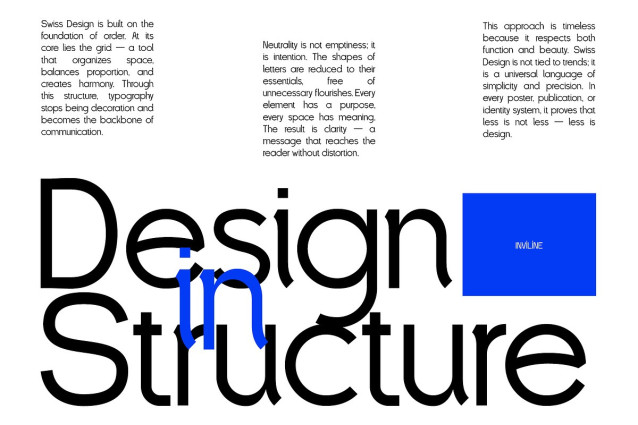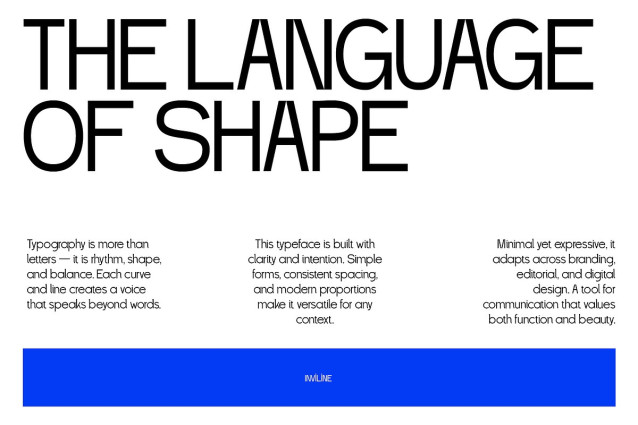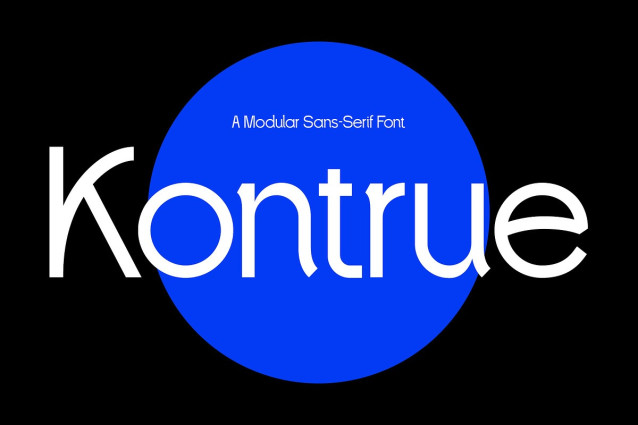
Kontrue Font
Kontrue Font is a modular sans-serif font with a futuristic twist and minimalist elegance. Designed for precision and clarity, each character is built with geometric consistency—featuring sharp terminals and subtle curves that make it both striking and versatile. Perfect for digital interfaces, fashion branding, modern editorial design, and tech startups. Whether used in display sizes or body text, Kontrue offers clarity without compromising uniqueness.